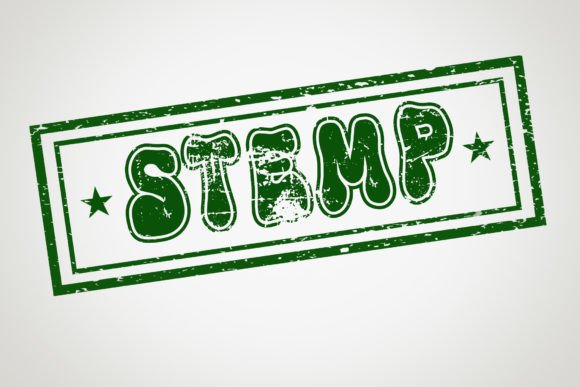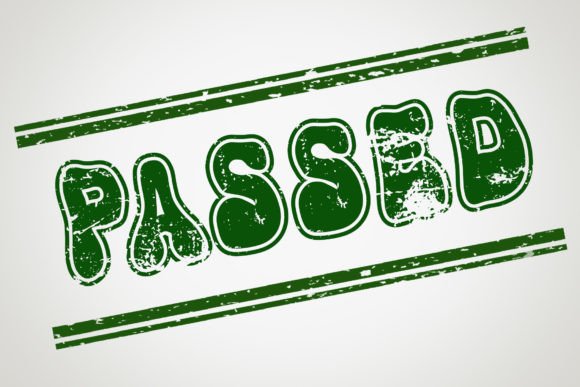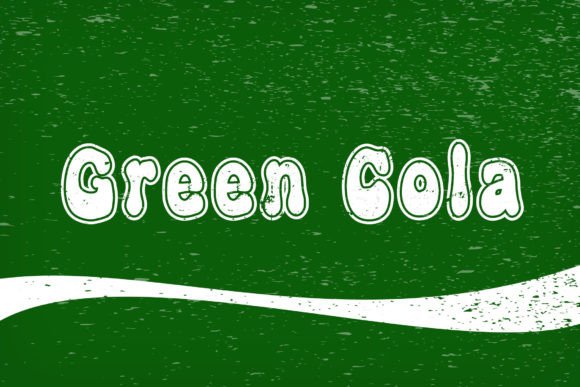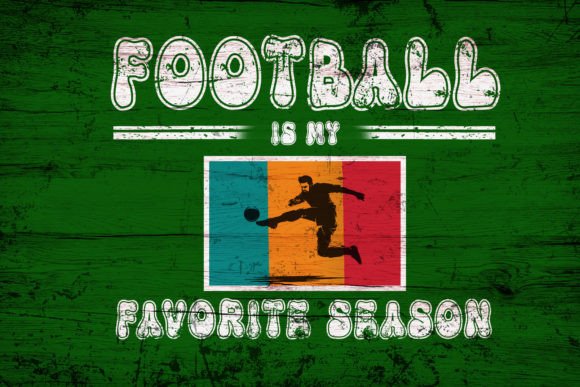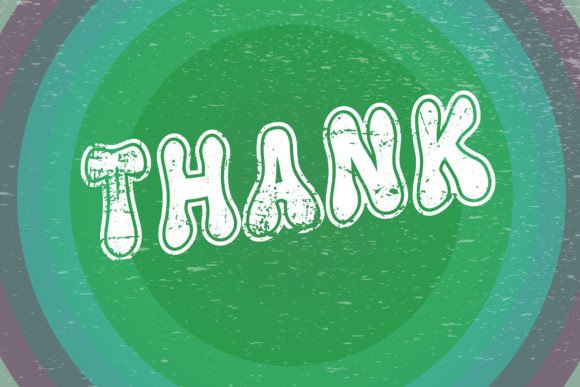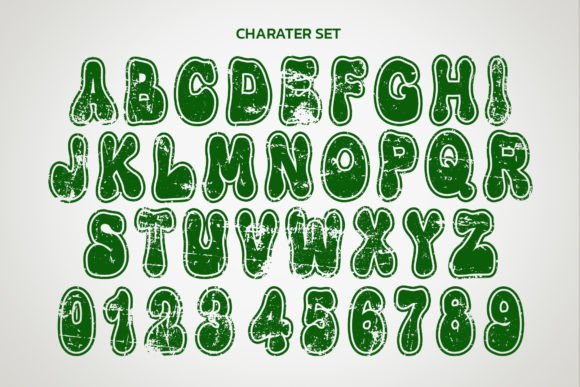
Introduction to Retro V3 Font
Introducing Retro V3 a vintage and bold display font that demands attention.
With its thick, block-like letters and distinctive characters, this font evokes a bygone era of bold design Perfect for headlines and logos, it will add a touch of nostalgia and character to any project.
Key Features of Retro V3 Font
Why Choose Retro V3 Font?